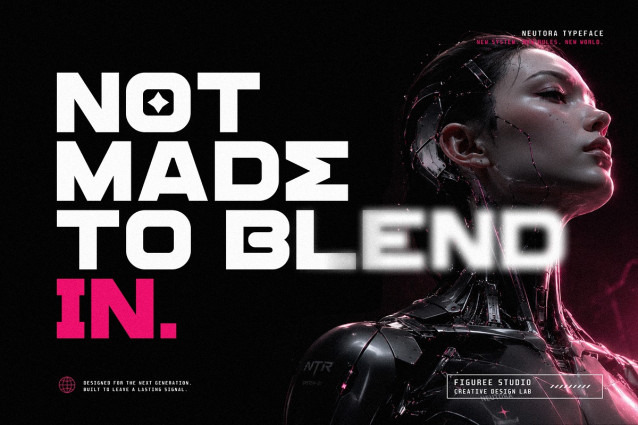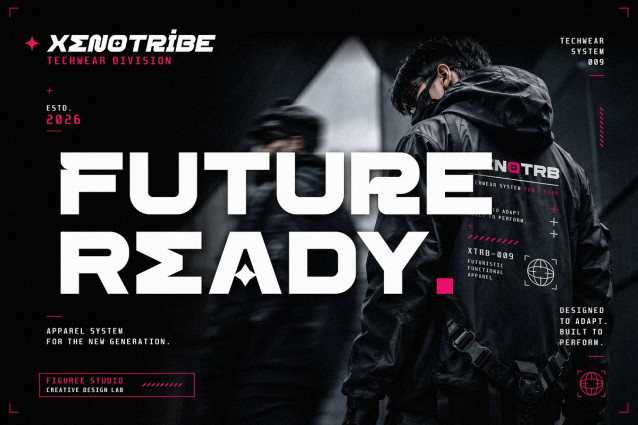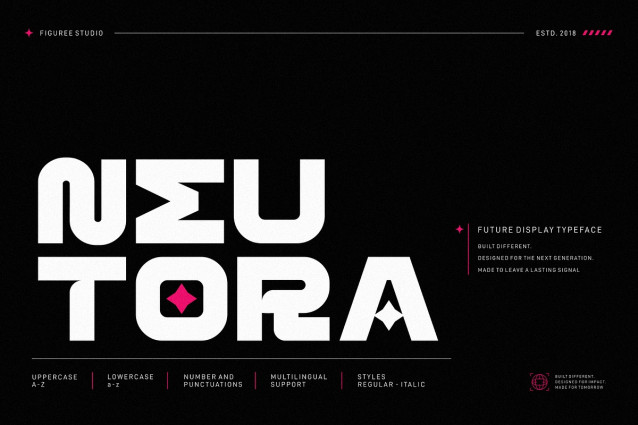
Neutora Font
Neutora Font – Bold Futuristic Font, a modern typeface designed for projects that demand strong visual impact and clean futuristic styling. With sharp geometric forms, dynamic letter construction, and powerful readability, Neutora is built for creators working on technology visuals, gaming graphics, sci-fi themes, digital interfaces, posters, and modern branding projects.
Neutora combines bold structure with a sleek, futuristic appearance, making it suitable for titles, headlines, presentations, thumbnails, UI graphics, promotional materials, and cinematic typography. Its carefully crafted letterforms create a sense of motion and innovation while maintaining clarity across both large and medium-sized layouts.
This font package includes both Regular and Italic versions, allowing designers to create stronger visual hierarchy and more flexible compositions. Whether you need a solid futuristic headline or a dynamic italic accent for motion-driven layouts, Neutora gives you the tools to build modern visual experiences.